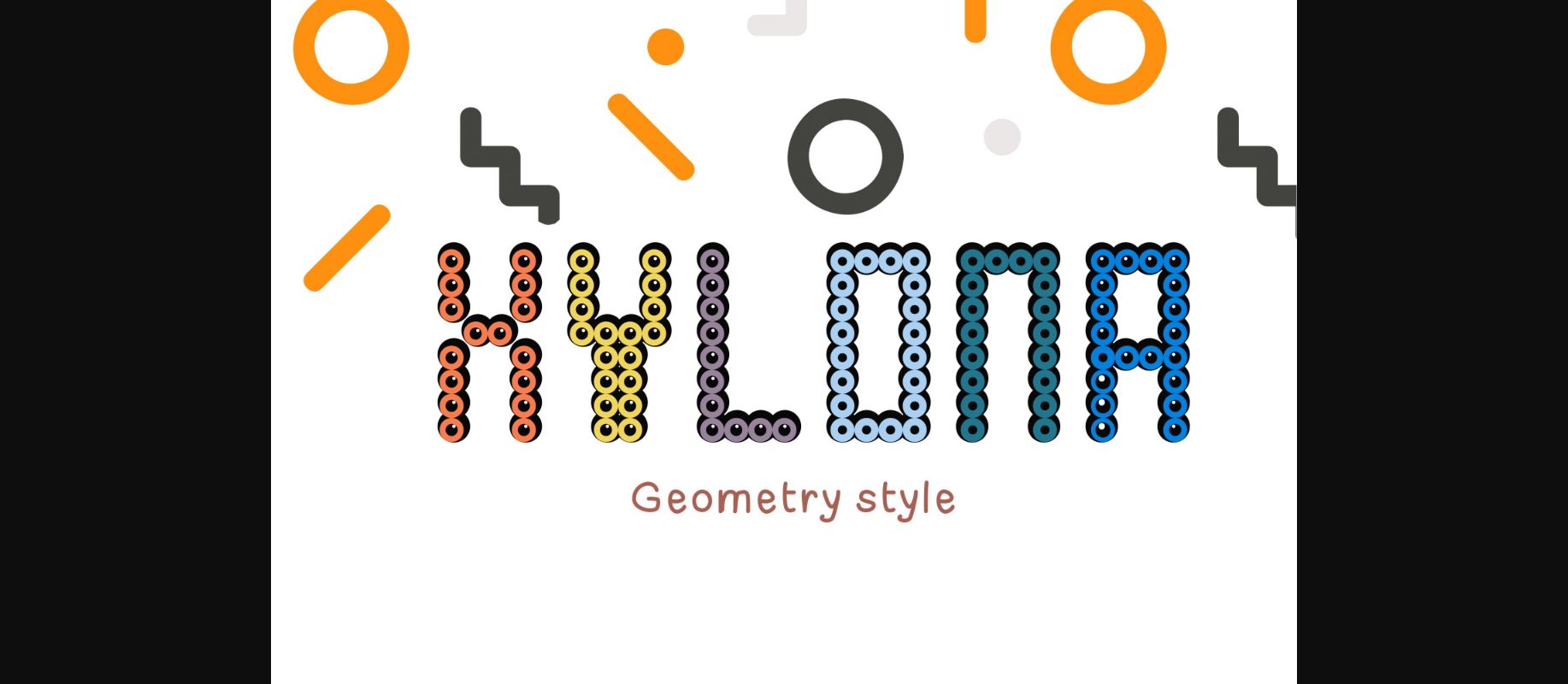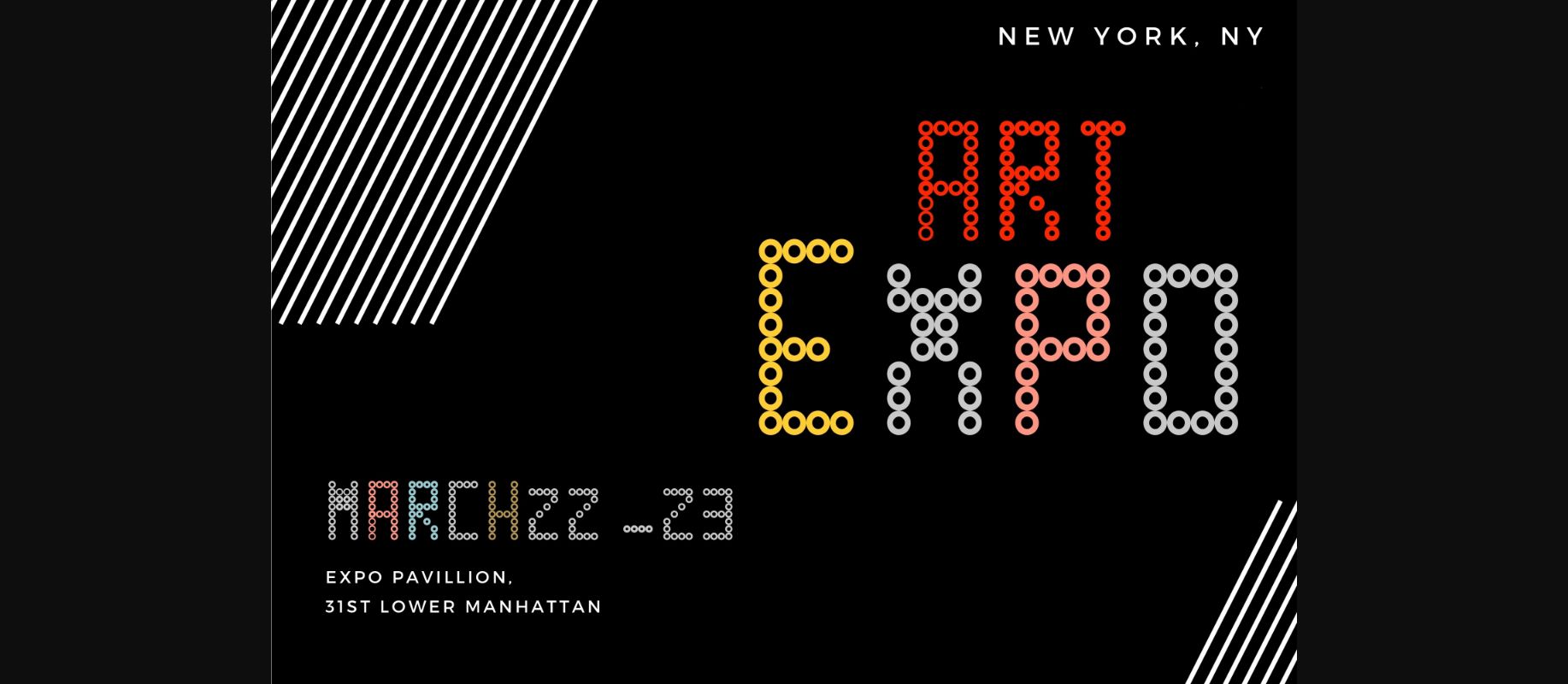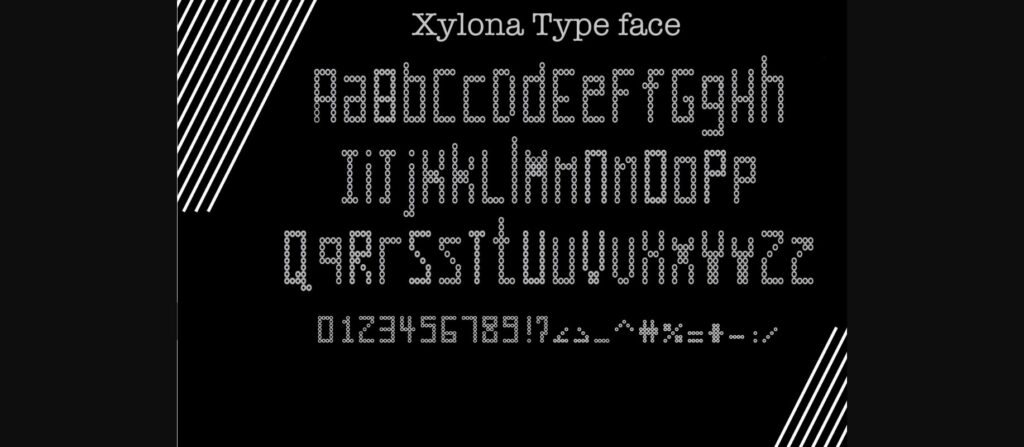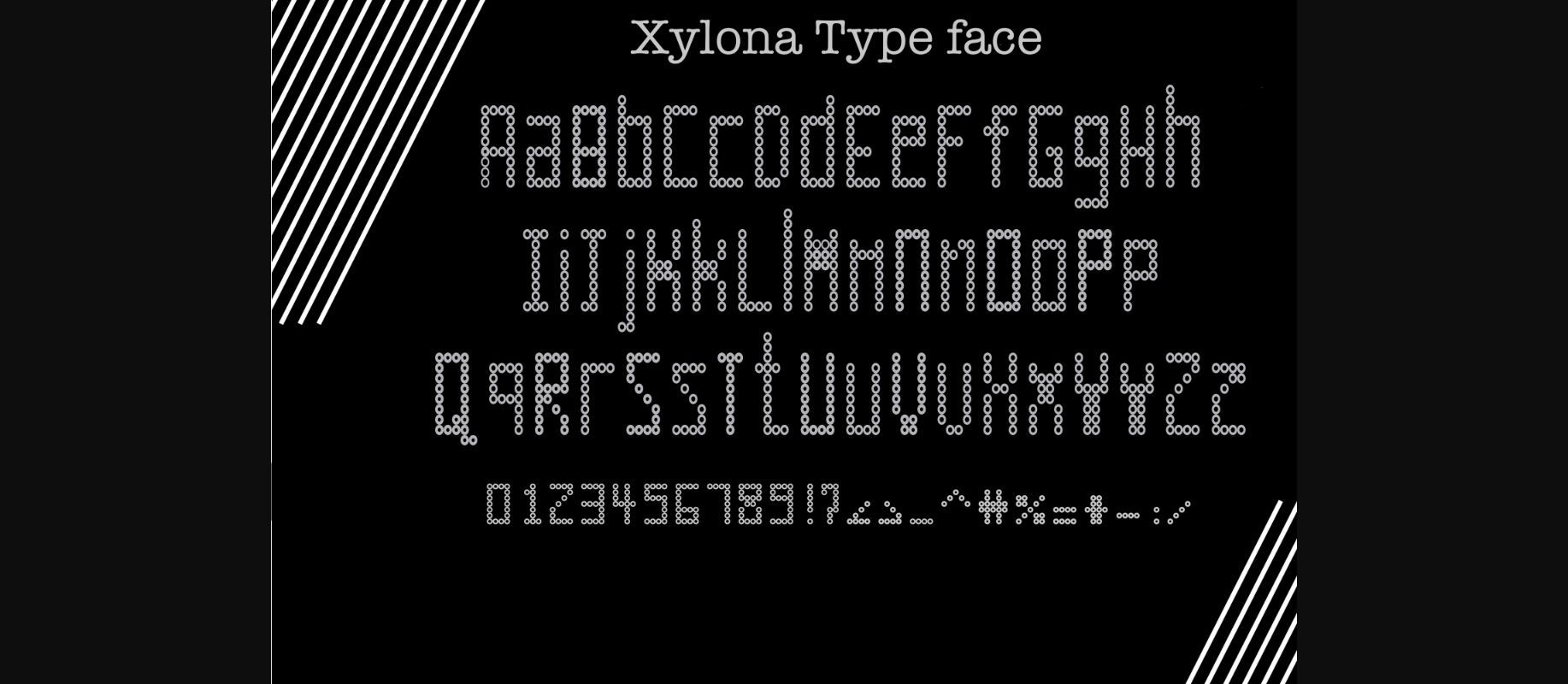
Xylona Font
About Xylona Font
Xylona is a cool and geometric styled decorative font. Its playfulness and authenticity are the perfect choice for any children activity or school project.